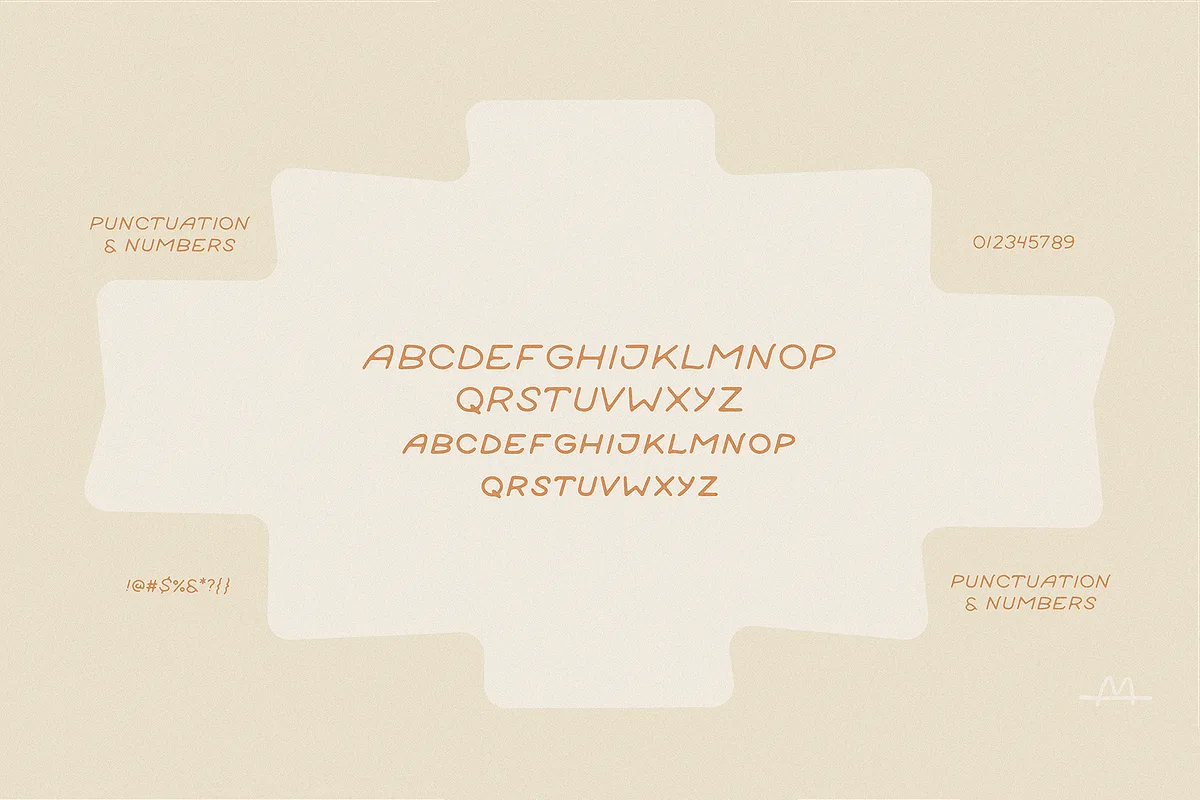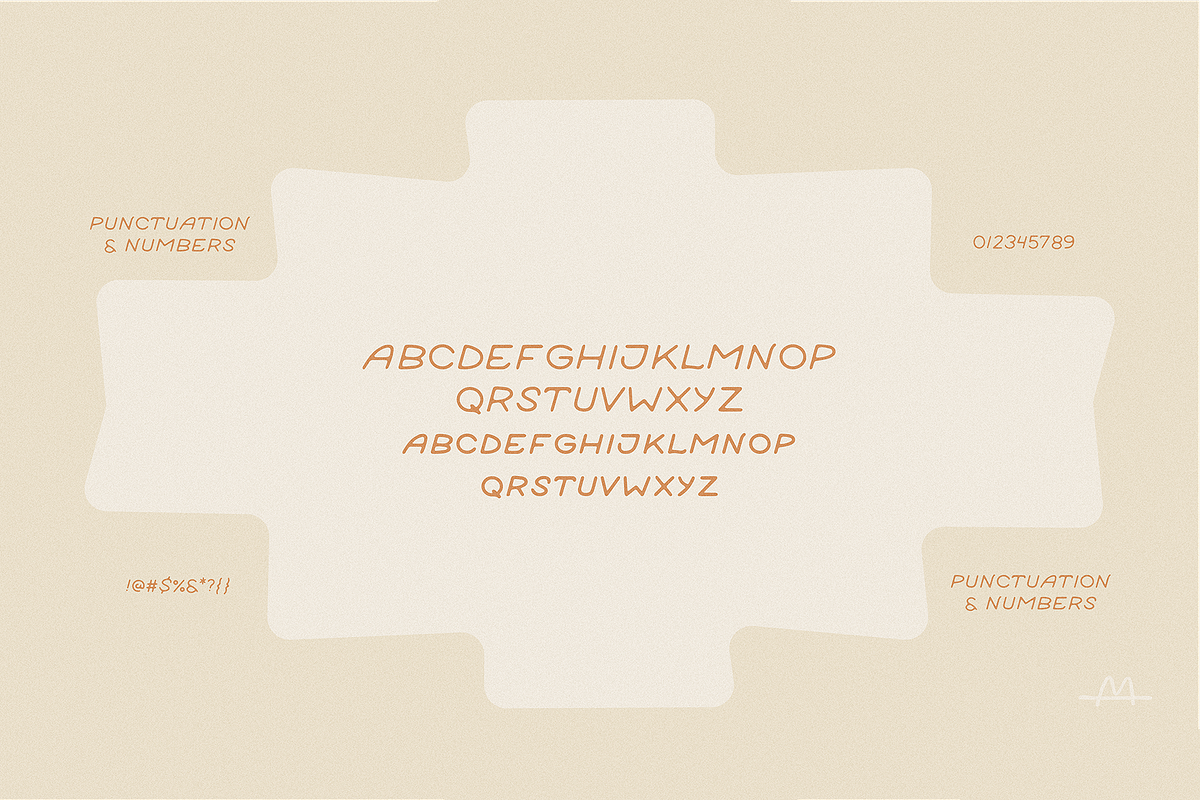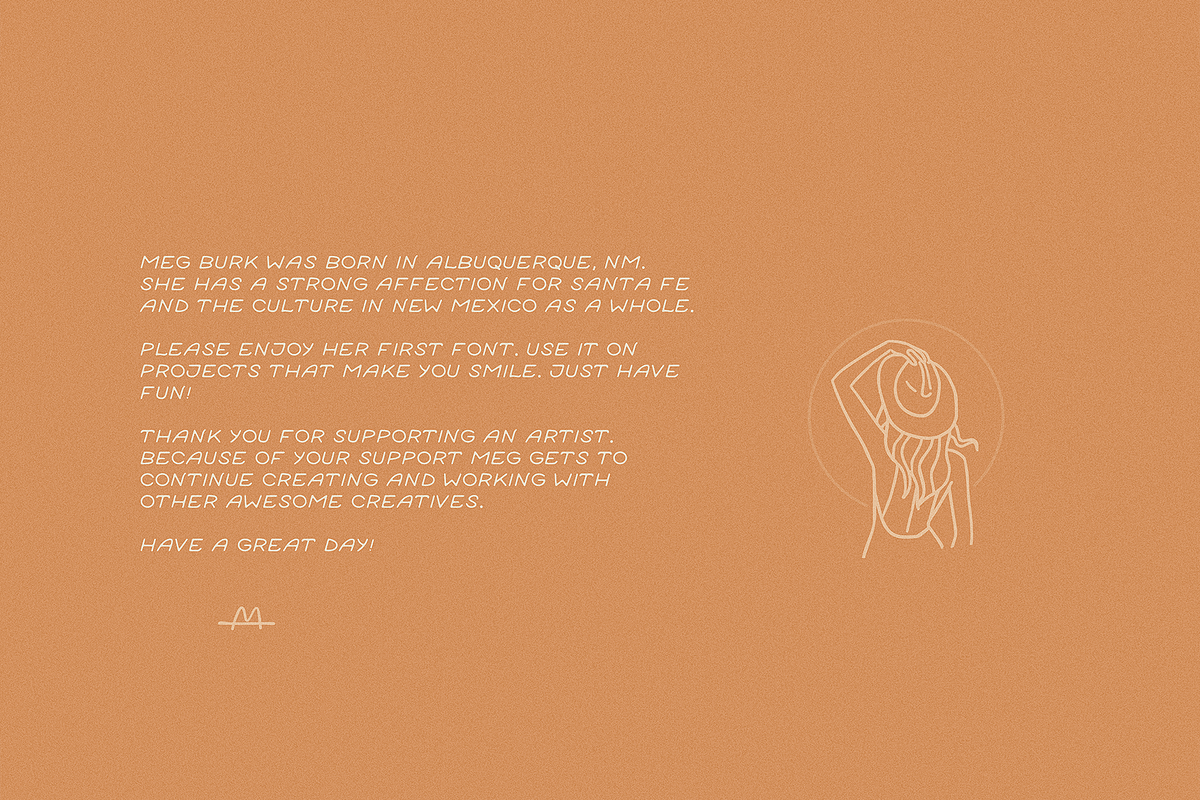
This all-caps, display typeface pairs well with designs that have any sort of western or hand drawn flair. Use it on tequila labels, coffee shop menus, tee shirt designs, or whatever else your creative mind is working on! It includes punctuation, numbers, and shortened text in place of lowercase characters.
Santa Fe Display Font